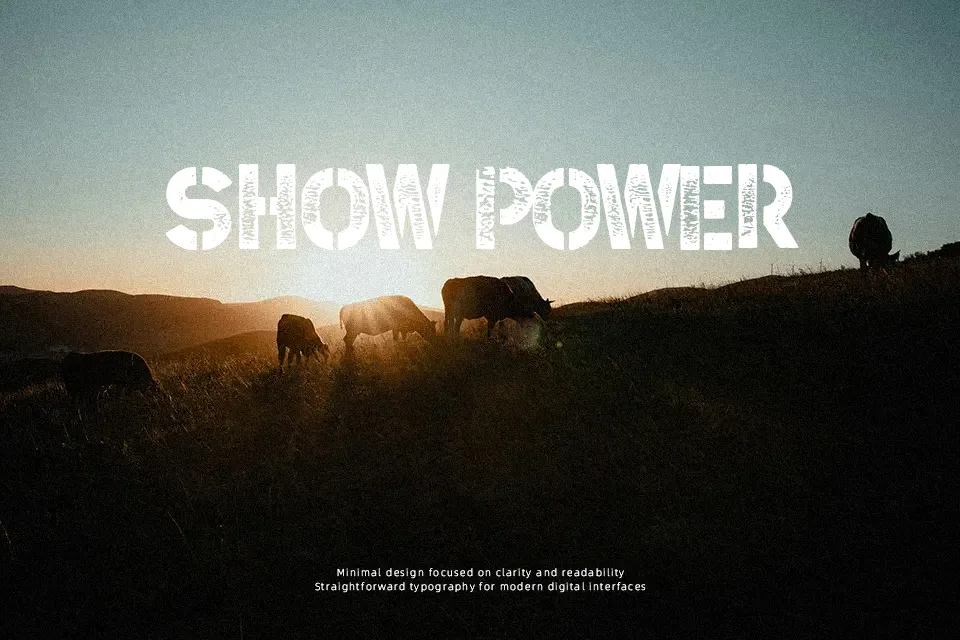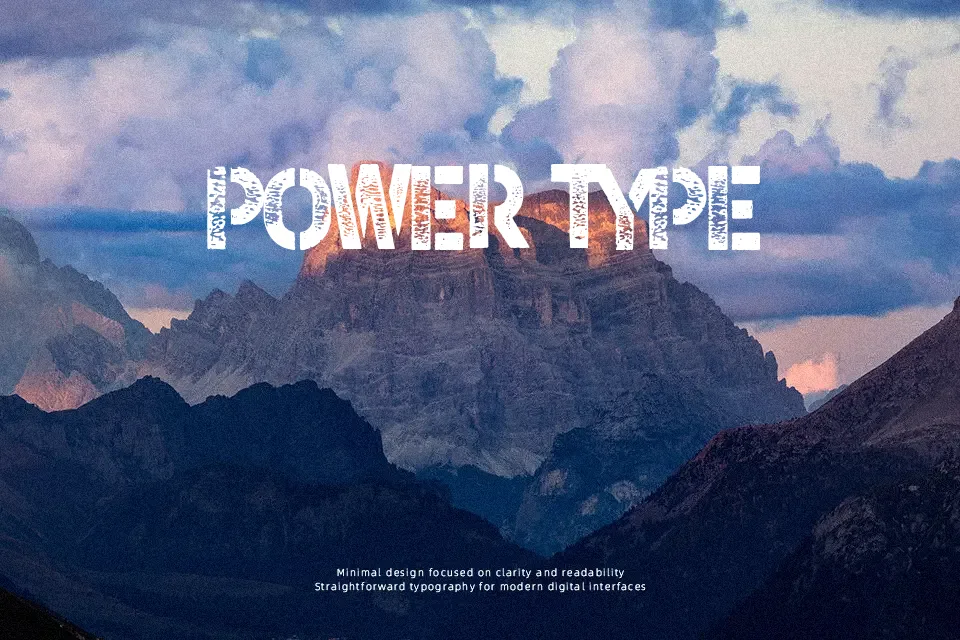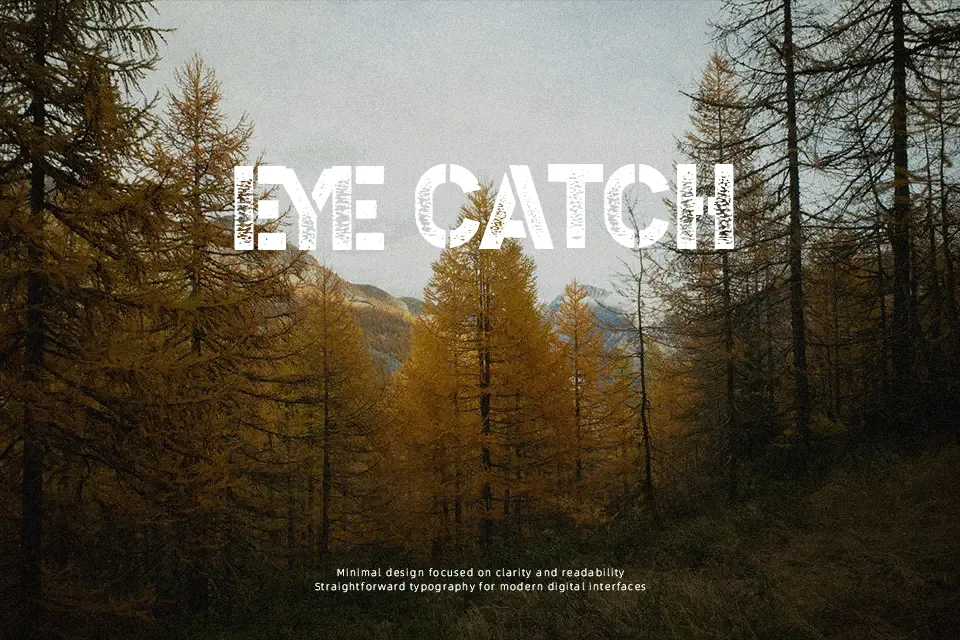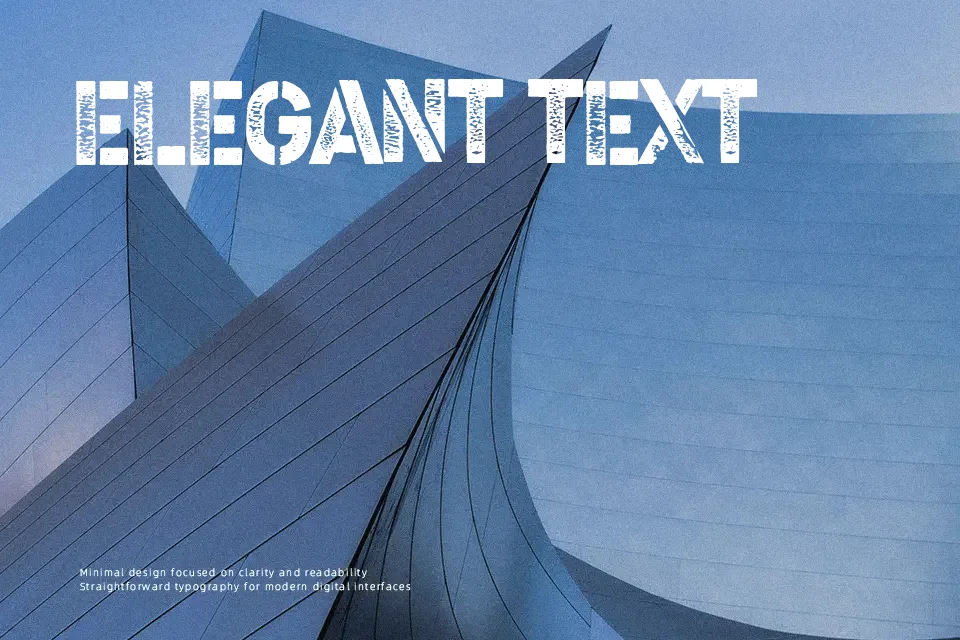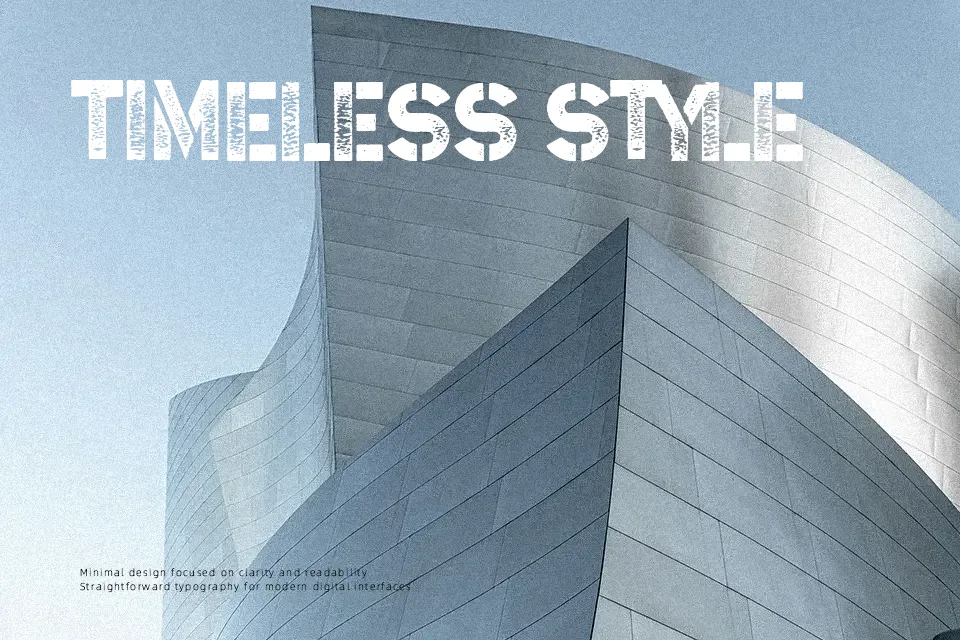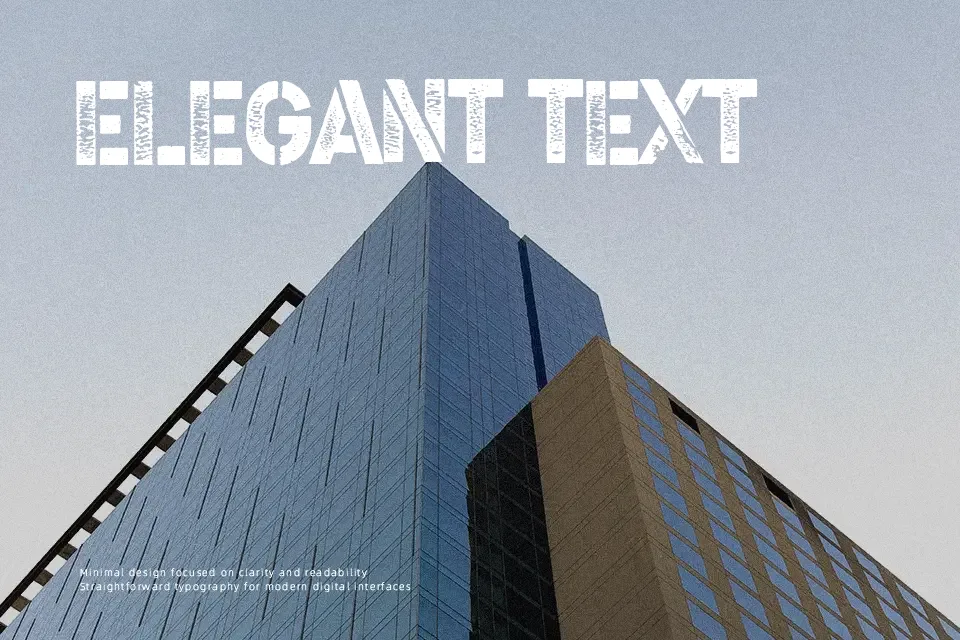
Steel Soldier Font
Steel Soldier Font is constructed with thick, slab-like strokes interrupted by sharp stencil cuts that establish a rigid military structure. Each character exhibits heavy stroke weight with virtually no modulation, creating squared silhouettes and compressed internal counters. Spacing between glyphs is relatively tight, emphasizing the dense, mechanical cadence across display lines. While the robust geometry delivers immediate authority on large signage, promotional banners, and gaming titles, the enclosed forms severely hinder legibility at reduced scales. Fine stencil gaps blur together in small captions, making continuous paragraphs difficult to decipher. The letterforms remain most effective when reserved strictly for bold, short display headers.
Best For: military event posters, action game titles, industrial product packaging, apparel graphics
Not Ideal For: long paragraph text, mobile app interfaces, editorial body copy, small caption labels
Perfect for branding, gaming, and headline, with a bold and display style.